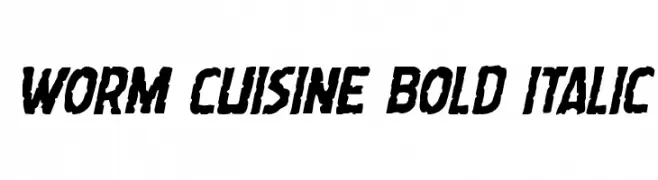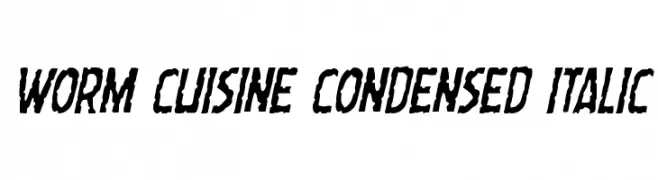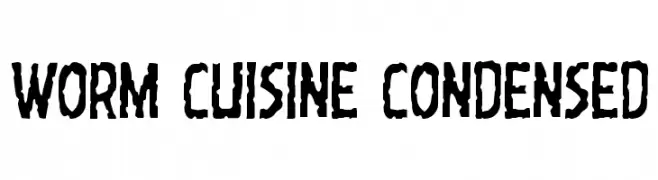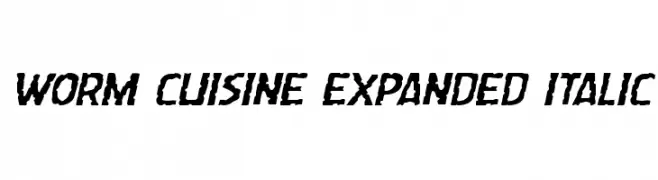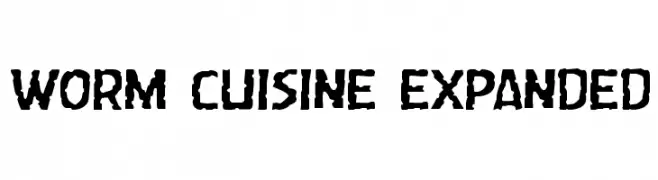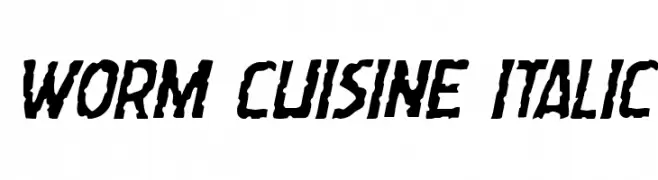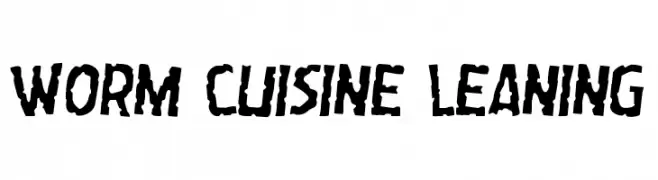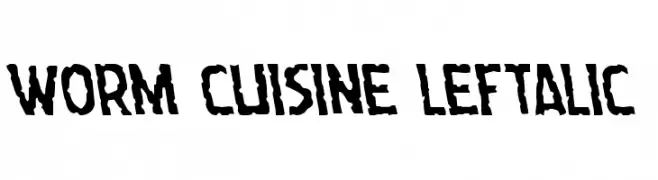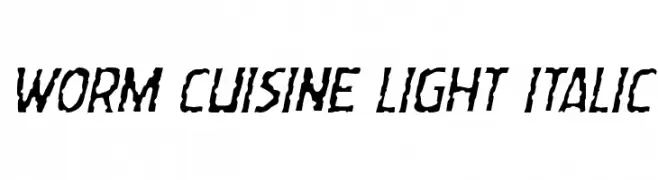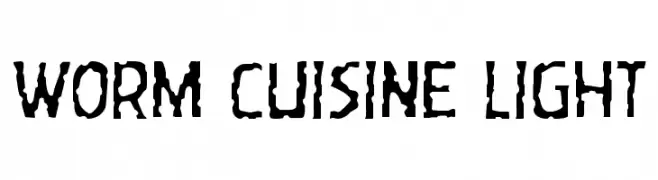
A bold, italicized font with a rugged, hand-drawn texture.
A bold, condensed font with a rugged, distressed style.
A bold, condensed, and italic font with a dynamic, hand-drawn style.
A bold, textured font with an organic, hand-drawn appearance.
A bold, expanded, and italicized font with a rugged, textured appearance.
A bold, italic font with a textured, hand-drawn appearance.
A bold, rugged font with jagged edges and a hand-drawn appearance.
A bold, rugged font with irregular edges and a dynamic tilt.
A bold, organic font with irregular, distressed edges and a natural, hand-crafted feel.
A dynamic, organic font with a distressed, hand-drawn appearance.